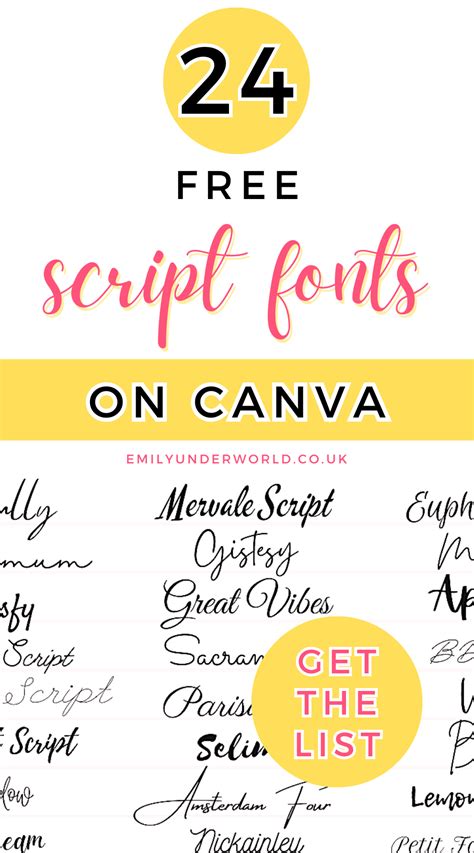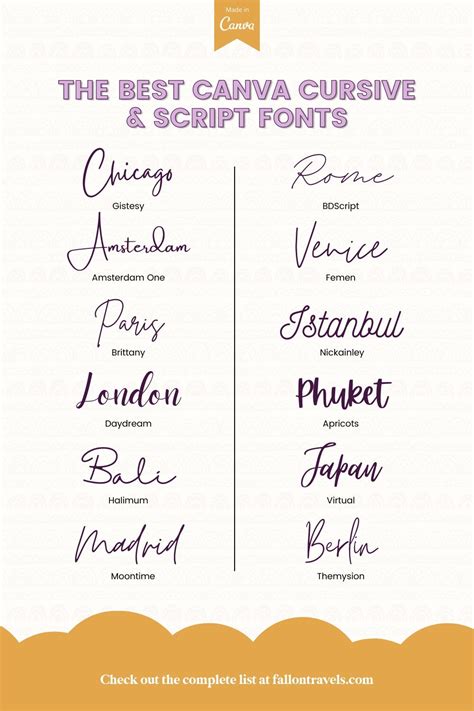
**Best Script Fonts for Canva Designs**
Readers, have you ever struggled to find the perfect font to elevate your Canva designs? It can be a real challenge to choose a script font that seamlessly blends style with readability. Don't worry, you're not alone! Choosing the right script font is crucial for creating visually appealing and professional designs. You see, script fonts possess an unmatched ability to infuse a touch of elegance, sophistication, and personality into your visuals. I've spent countless hours analyzing and experimenting with countless script fonts, and I'm here to guide you through the best options for your Canva masterpieces.
So, let's dive into the world of script fonts and discover which ones will take your Canva designs to the next level, leaving a lasting impression on your audience.
Understanding Script Fonts
Script fonts, also known as cursive fonts, are inspired by handwritten lettering. They typically feature flowing, connected strokes, reminiscent of calligraphy. Script fonts can range from elegant and formal to playful and casual, offering a wide array of styles to suit different design needs. They bring a unique charm and personality to designs, making them particularly popular for branding, invitations, social media graphics, and more.
The Importance of Choosing the Right Script Font
Choosing the right script font is crucial for the overall aesthetic and feel of your Canva designs. A well-chosen script font can enhance readability, convey the desired tone, and elevate the visual appeal of your creations. Here are some key factors to consider:
Readability
While script fonts can add a touch of elegance, they can also pose challenges in terms of readability. Some script fonts are highly stylized and have intricate strokes that can make it difficult for viewers to decipher the text. When choosing a script font, it's vital to prioritize readability, particularly for longer text blocks. Choose fonts with clear letterforms and spacing to ensure that your message is effectively communicated.
Style and Tone
Script fonts come in a wide range of styles, from elegant and formal to playful and casual. Consider the overall tone and style of your design. For example, a formal event invitation calls for a more refined script font, while a casual social media graphic might benefit from a playful and whimsical script. Selecting a script font that complements the style and tone of your design ensures a cohesive visual experience.
Versatility
Some script fonts are versatile and can be used for a variety of design purposes. Others are more specialized and may only be suitable for specific applications. If you're looking for a script font that you can use across a range of projects, choose one that is both elegant and practical.
Popular Script Fonts for Canva
Canva offers a wide selection of script fonts, both free and premium, to enhance your designs. Here's a curated list of some popular script fonts that are ideal for Canva and their potential applications:
Free Script Fonts
Canva provides a decent collection of free script fonts. These fonts are a great starting point for your design projects, particularly if you're on a budget or exploring different styles.
1. Allura
Allura is a beautiful and versatile script font that adds a touch of elegance and sophistication to any design. With its flowing, connected strokes and slightly angled characters, Allura is perfect for wedding invitations, greeting cards, logos, and more!
2. Dancing Script
Dancing Script is a playful and whimsical script font that adds a touch of fun to any design. This font is particularly great for social media graphics, branding materials, and children's books.
3. Pacifico
Pacifico is a popular and charming script font that is perfect for adding a casual and relaxed feel to any design. This font is ideal for blog posts, social media graphics, and branding materials.
4. Great Vibes
Great Vibes is a stylish and modern script font with a vintage feel, making it great for websites, logos, and branding projects.
Premium Script Fonts
If you're looking for a more unique or sophisticated look, Canva's premium script fonts are worth considering. These fonts are generally more polished and offer a wider range of styles and options.
1. Alex Brush
Alex Brush is a bold and elegant script font perfect for adding a touch of sophistication to your designs. It's perfect for branding, logos, and invitations.
2. Playfair Display
Playfair Display is a refined and versatile serif font that combines elegant script elements with a touch of modernity. It's popular for wedding invitations, branding, and website design.
3. Lora
Lora is an elegant and readable script font. It offers a sense of tradition and sophistication, making it a great choice for book covers, website design, and branding.
4. Crimson Text
Crimson Text is a beautiful and classic script font. Its elegant, flowing strokes and slightly slanted characters lend a sense of sophistication to any design, making it an ideal choice for wedding invitations, branding, and website design.